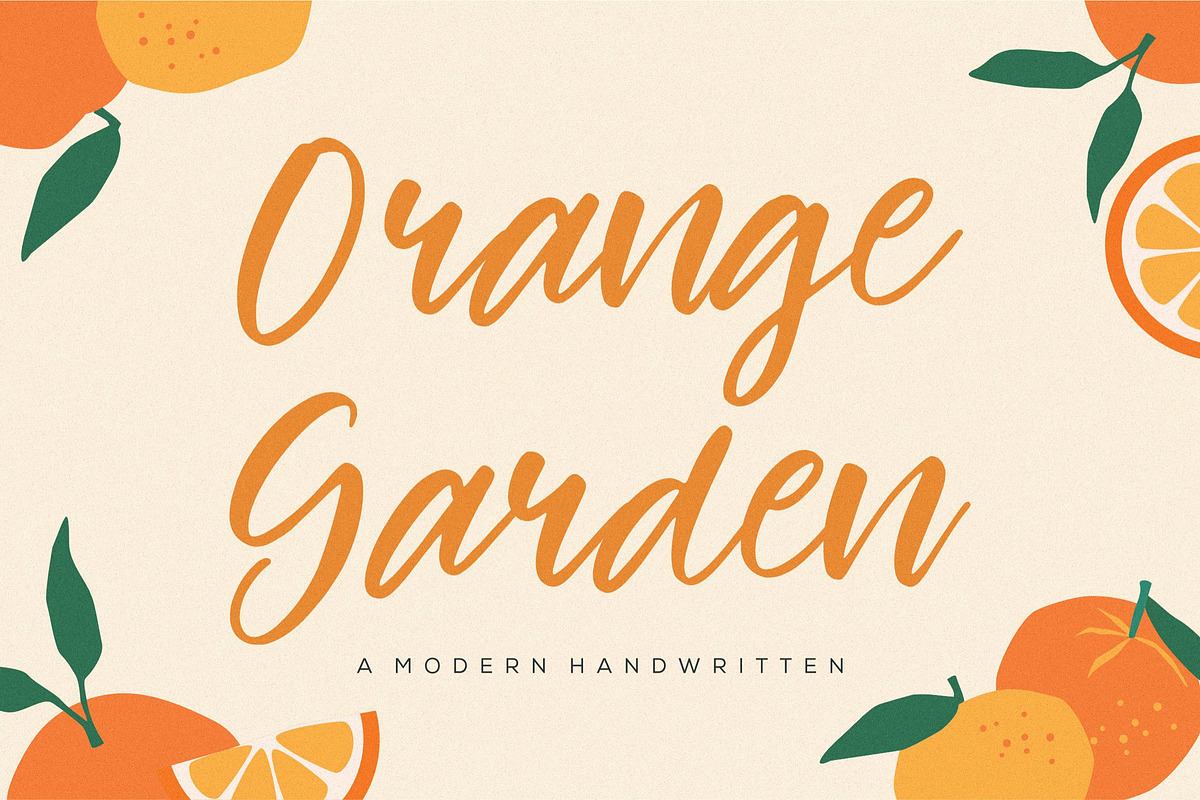
Orange Garden Font Free Download
Orange Garden Font Free Download is a fresh, elegant script font that blooms with natural charm and handwritten grace. With its flowing curves and organic style, Orange Garden is perfect for wedding invitations, beauty branding, greeting cards, social media posts, and lifestyle blogs.
This typeface feels like a sunny afternoon in a blooming garden—soft, stylish, and effortlessly beautiful. It adds a personal and romantic touch to any design, ideal for projects that need warmth and authenticity. Whether you're creating a delicate logo or a heartfelt quote graphic, Orange Garden helps your message blossom.
Its smooth readability and graceful swashes make it a favorite for both print and digital designs.